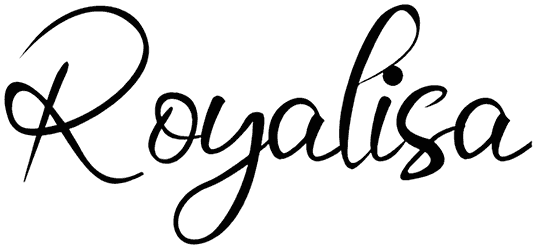
Royalisa Font
For your royal design, let’s test a classic manuscript face and create an impressive one. As a handwritten font, Royalisa, with its soft twisty letters, would properly provide a beautiful mood for your projects. Set this cheerful, romantic font on your novel designs, such as greeting cards, posters, logos, or the like, and be creative.